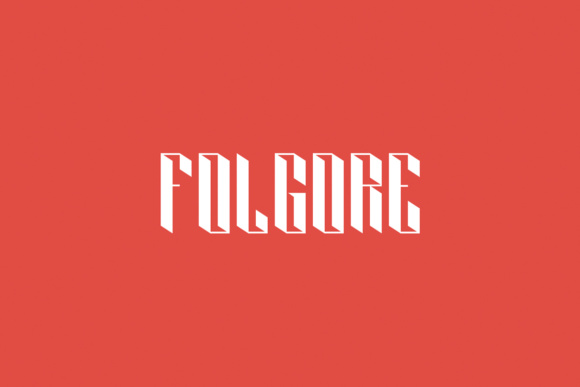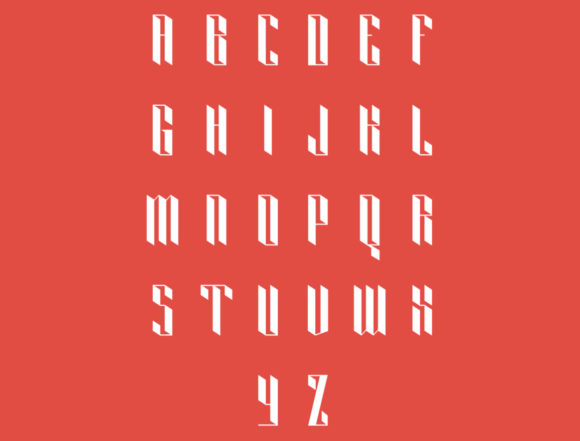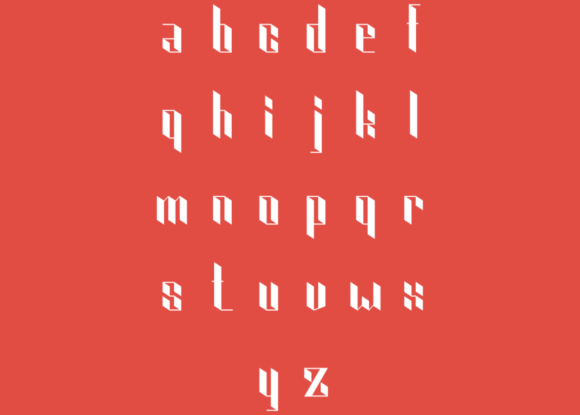
About Folgore Font
The Folgore is a free display typeface with a fun 3D look. It celebrates abstract shapes in all their eclectic brilliance. Add this font to your creative ideas and notice how it will make them stand out!